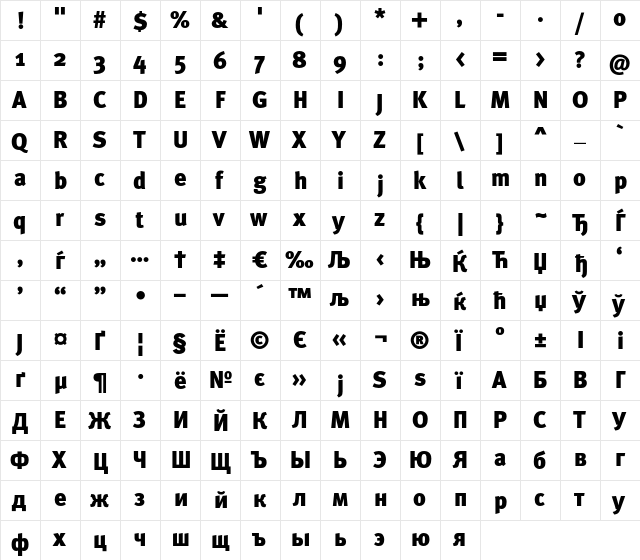
MetaBlackCyr-Roman Regular Font Preview
MetaBlackCyr-Roman Regular
MetaBlackCyr-Roman Regular Font Details
Design Context for MetaBlackCyr-Roman Typeface
MetaBlackCyr-Roman is a composed and adaptable typeface that performs quietly and consistently across a wide range of design contexts.